Nootype: Radikal
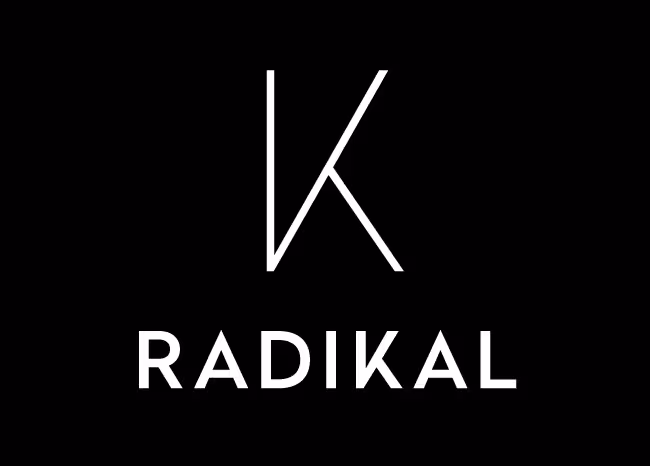
Radikal is a geometric sans-serif dedicated to the research of purity.
FontFont: FF Quixo
FF Quixo feels at home whenever a touch of personality, whim, and some symbols are required.
Alex Trochut: Trojan
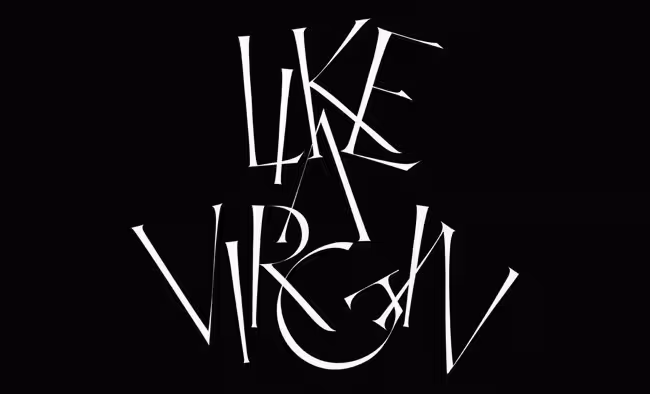
A sophisticated set of glyphs which give this font a classic contemporary appearance.
Kyle Wayne Benson: Tide Sans
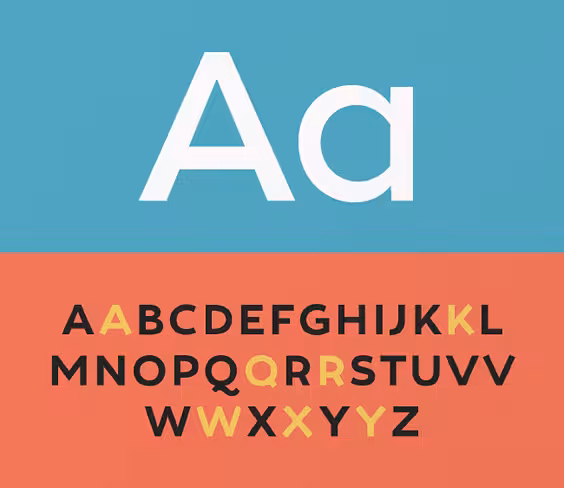
Tide Sans’ fresh, carefree, look makes you almost forget that you’re staring at a monitor and not on the beach.
FaceType: Adria Grotesk
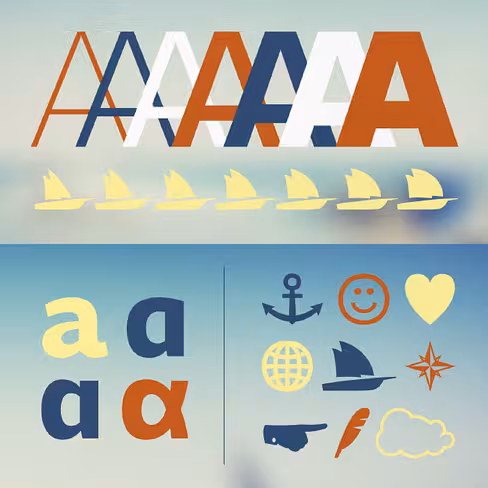
Adria Grotesk is a friendly sans–serif that comes in 7 weights with charming upright italics.
Village: Ogg
Inspired by the hand lettering of 20th century book designer and calligrapher Oscar Ogg.
Fenotype: No. Seven
No. Seven is a bold brush style script family of three weights.
Fenotype: Alek
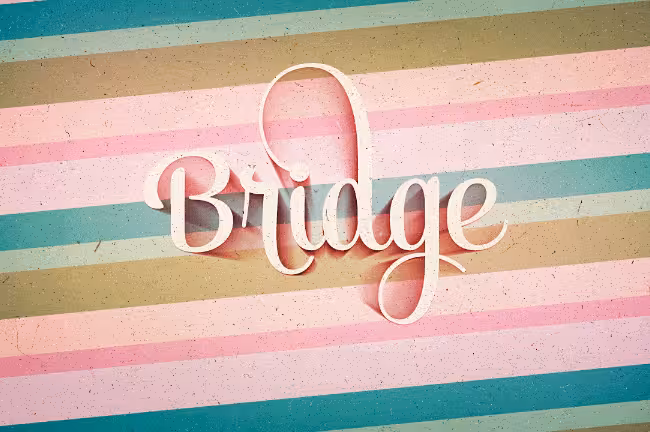
A classy and elegant yet playful upright script family.
Jamie Wilson: Norwester
Norwester is a condensed geometric sans-serif.
Hold Fast Foundry: Industry
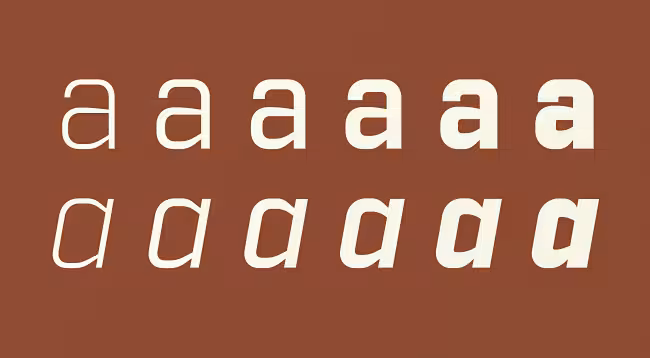
Forged from geometric and technical styles, Industry stands sturdy and strong.
TipoType: Arya
Arya is a display typeface, based on Roman proportions with three versions, differentiated by the amount of the drawn lines.
Parachute: Das Grotesk Pro
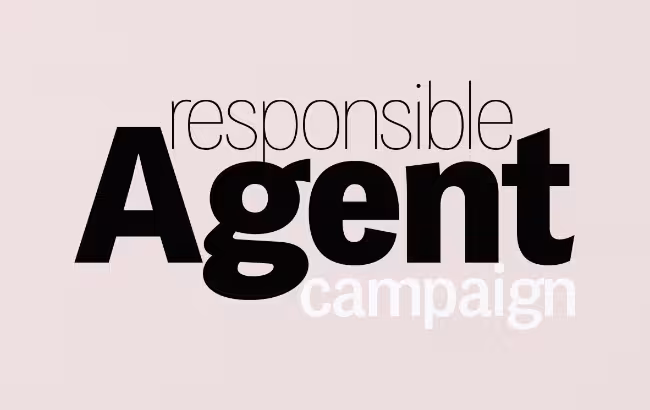
Das Grotesk Pro is inspired by earlier 19th century grotesques, but much more related to American gothic designs such as those by M.F. Benton.
Positype: Clear Sans
Clear Sans is a rational geometric sans–serif — clean, geometric and precise.
Stephen Rapp: Baghadeer
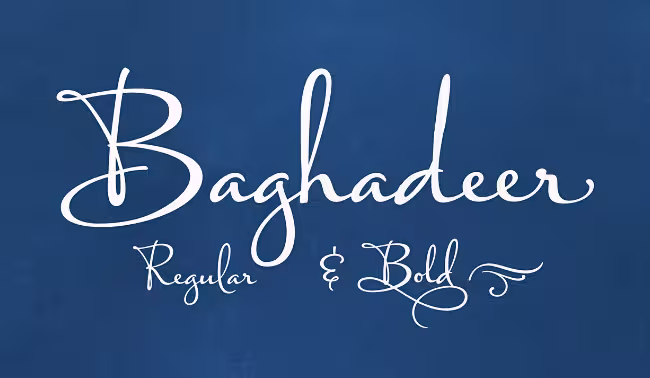
Baghadeer is an upright connecting script brimming with personality.
Fontsmith: FS Hackney
Meticulously honed to perform in exacting conditions.
PintassilgoPrints: Marujo
Marujo is a highly decorative typeface inspired by painted pieces of Arthur Bispo do Rosário.
PintassilgoPrints: Undersong
Undersong brings 13 fancy hand-drawn stackable fonts which can be combined in many, many tasty ways.
Canada Type: Trump Gothic Pro
Trump Gothic Pro is a reconception of ideas from Georg Trump’s seminal 1955 Signum typeface.
Rene Bieder: Canaro
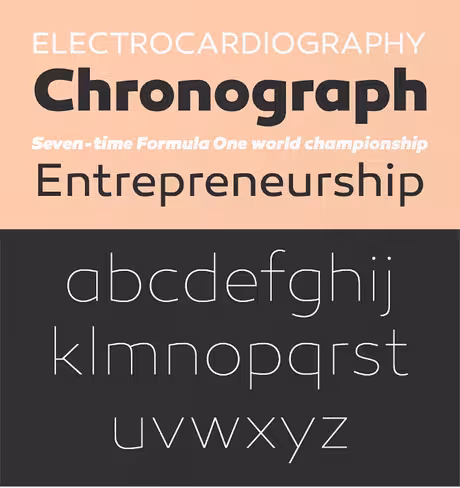
Sharp and elegant thinner cuts, sporty and athletic heavy weights.
Dada Studio: Sharik Sans
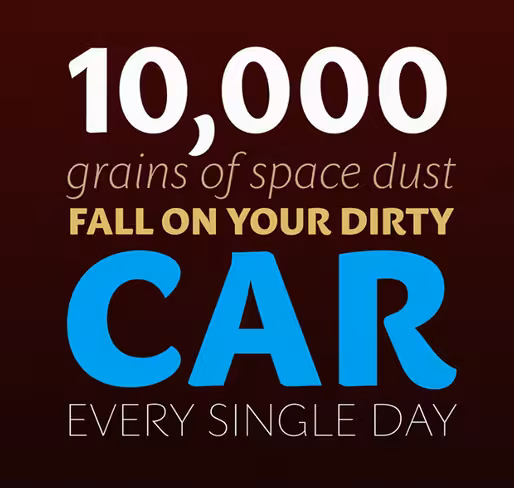
Sharik Sans has a warm and gentle personality.